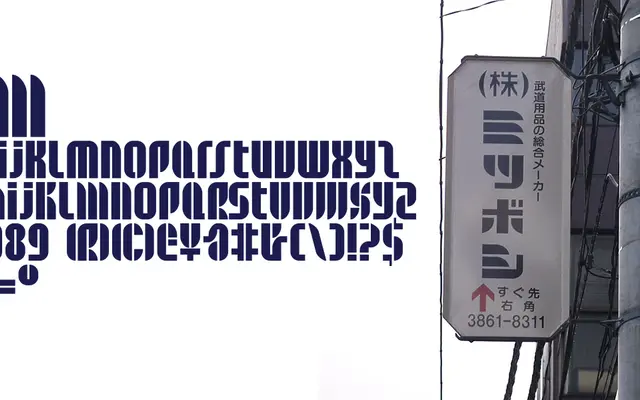
BD Alm
A display typeface drawn from the Katakana lettering on a Tokyo pharmacy sign, applying that angular aesthetic to the Latin alphabet.
Created during a stay in Tokyo in 2001, BD Alm translates the visual character of Katakana script into Latin letterforms. The result is a single-weight display face with a distinctly angular, stylised quality suited to headlines and short text rather than body copy. Coverage is limited to Basic Latin and a small selection of Latin-1 Supplement glyphs.
The letterforms are inspired by Katakana characters from a Japanese pharmacy sign, giving the Latin alphabet a stylised, angular quality more suited to display use than running text.